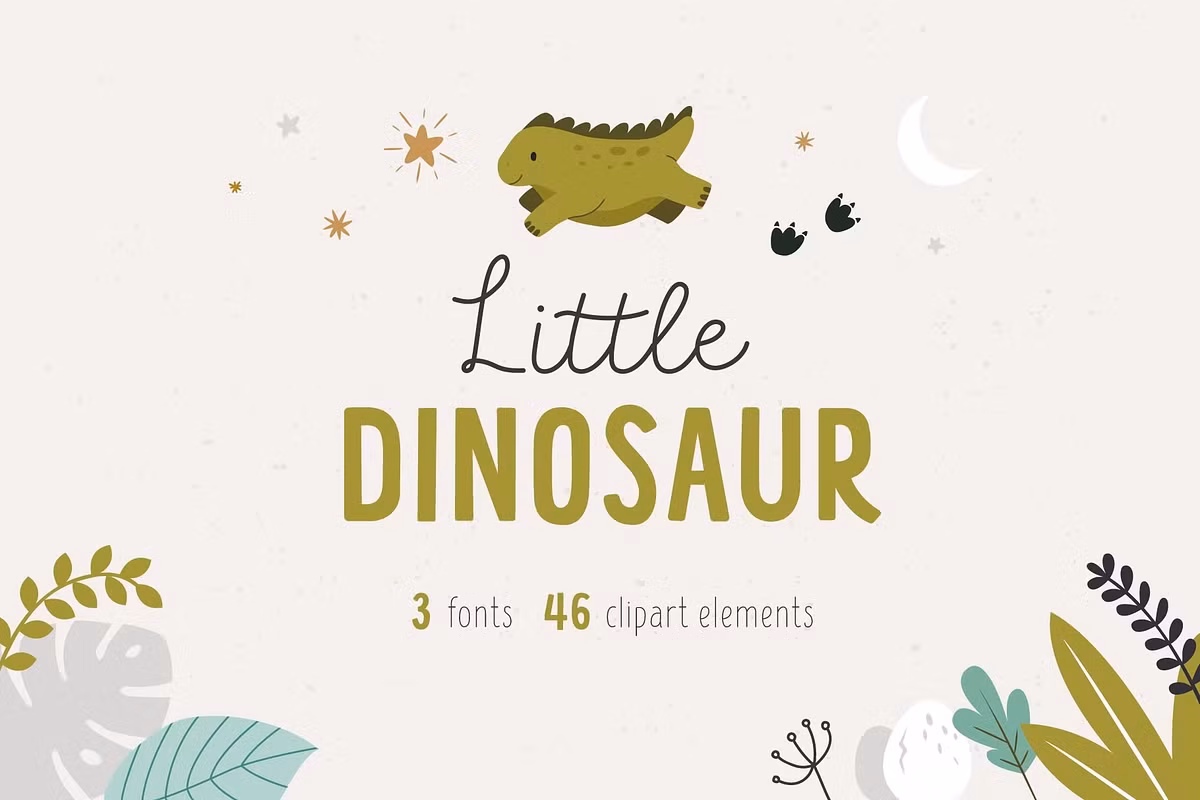
Little dinosaur | Cute Font Free Download
Little Dinosaur | Cute Font Free Download is an adorable and playful typeface that’s perfect for kids’ designs, baby products, birthday invites, and anything that needs a dash of charm and fun. With chunky letterforms and a bouncy, hand-drawn style, Little Dinosaur brings smiles wherever it goes. It's a go-to font for creators looking to add a friendly, youthful vibe to their work.
What makes Little Dinosaur | Cute Font Free Download extra special is its joyful energy—it’s not just a font, it’s a mood! Whether you’re designing for a preschool brand, a storybook cover, or a cute t-shirt design, this font adds a sense of wonder and warmth that’s hard to resist.